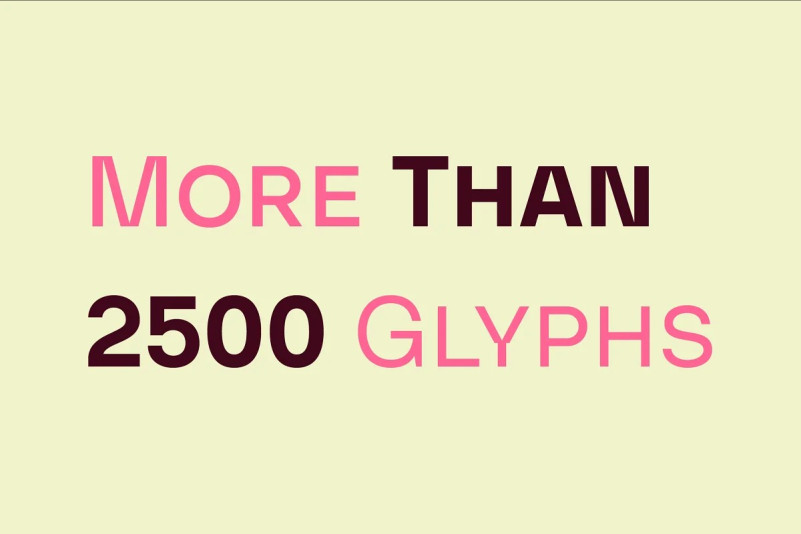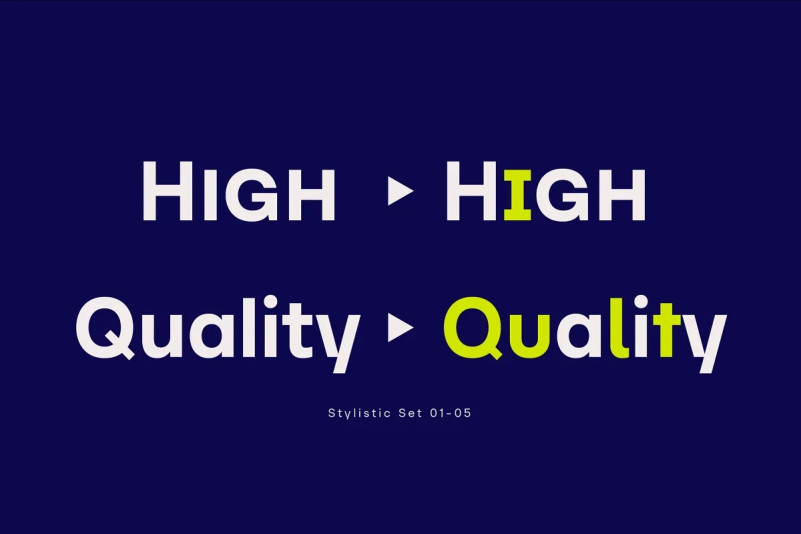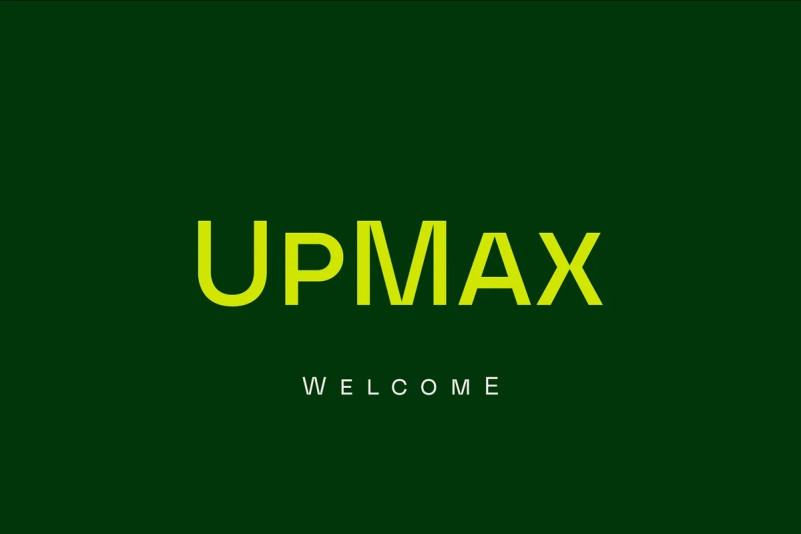
UpMax Font
UpMax Font is a modern font family. This family is ideally suited for graphic design and display use. Language support: extended Latin (including Vietnamese), Cyrillic (including Bulgarian), and Greek. It comes in 12 weights, 6 uprights, and matching italics. Each weight includes 2540 glyphs and 36 OpenType features (including Small Caps, Ligatures, Numerals, and Typographic Variants).